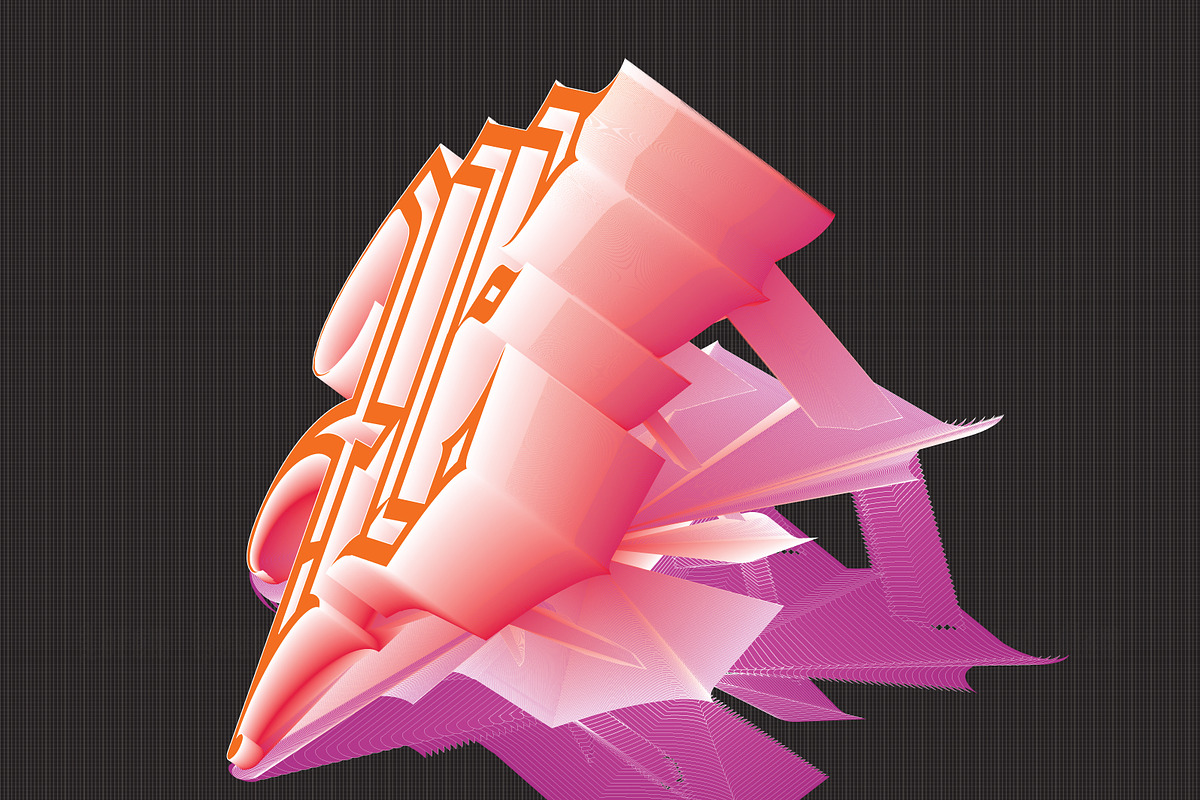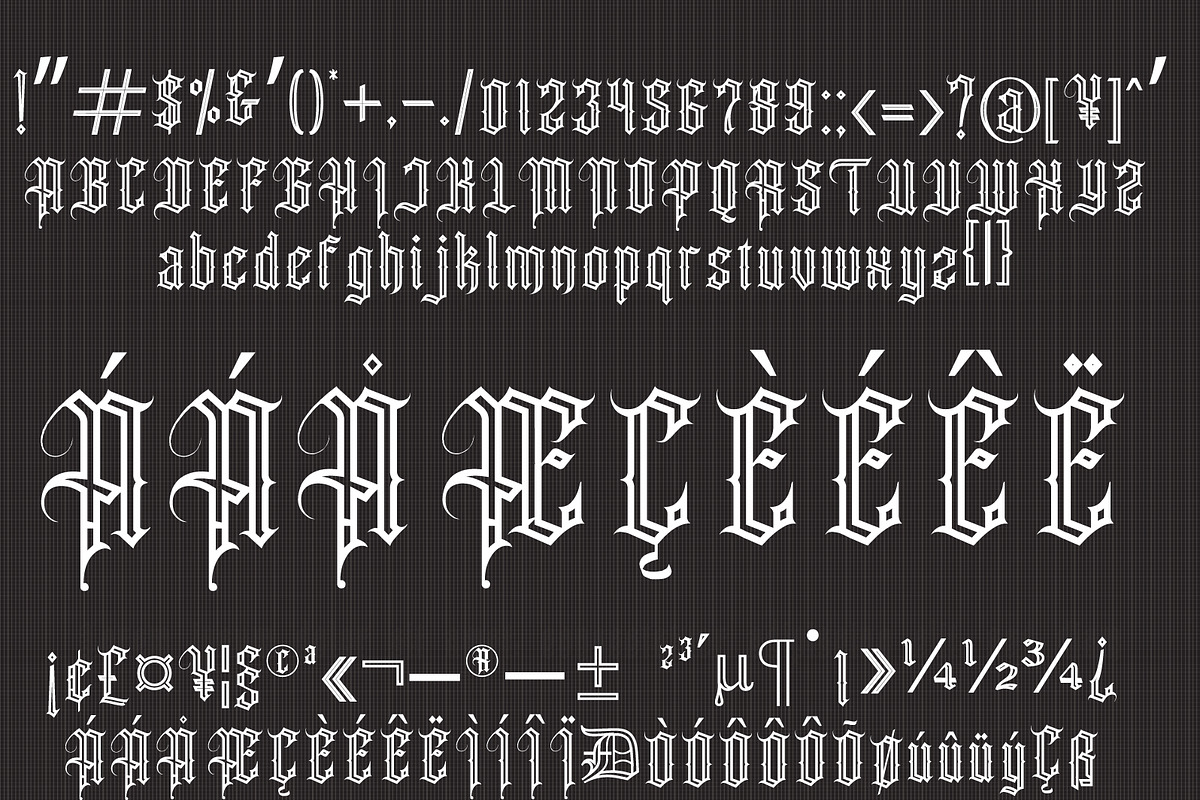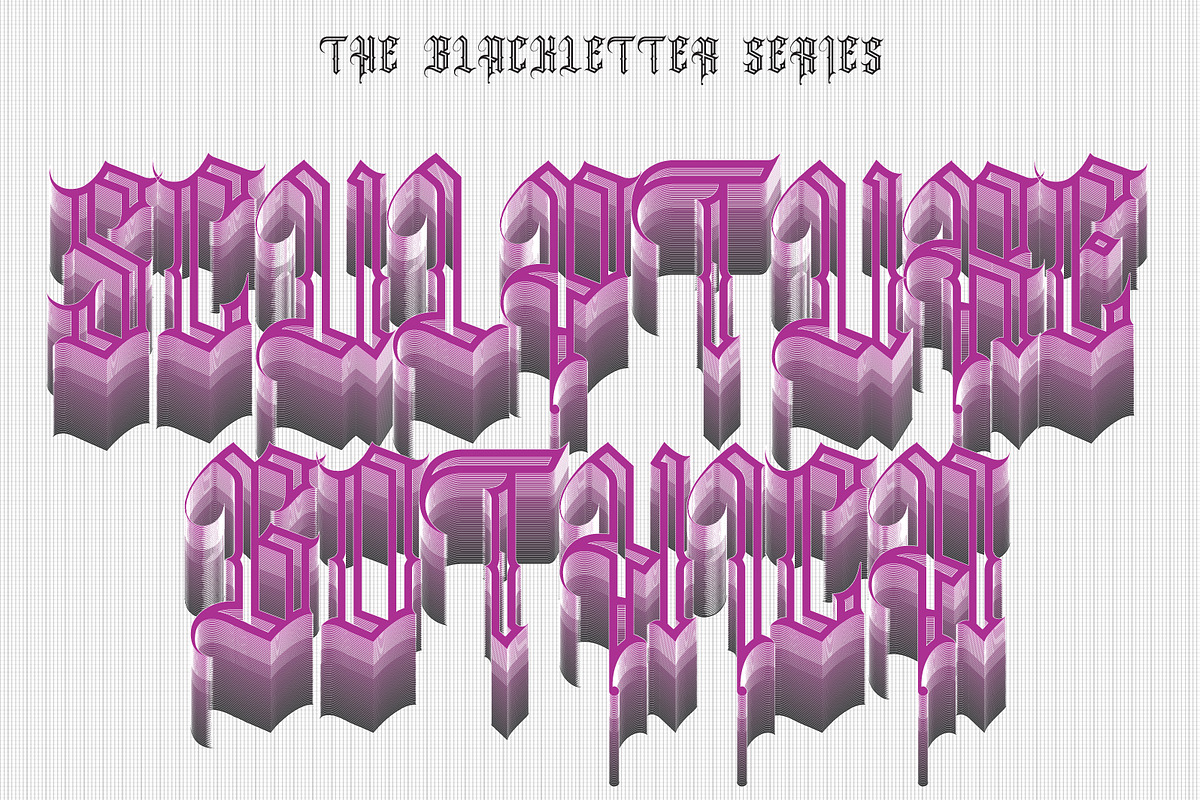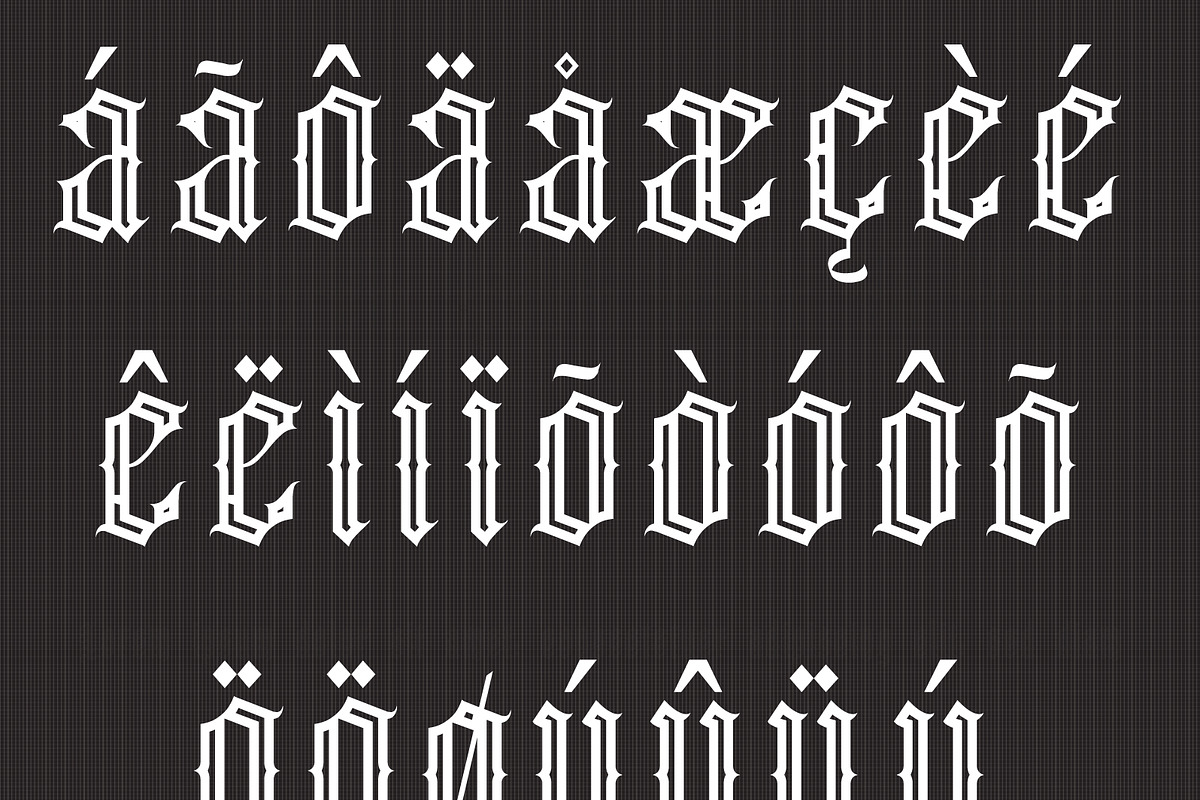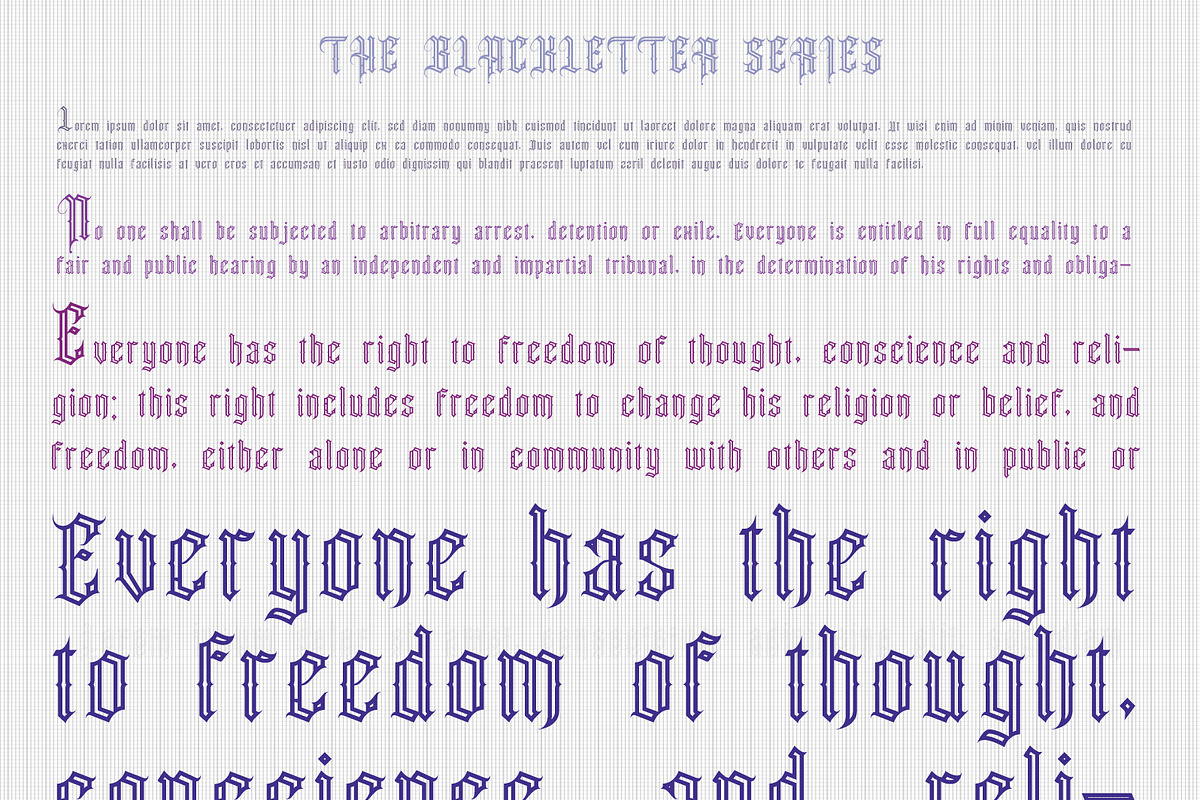
Sculpture Gothica
Blackletter typefaces are stylized fonts with a calligraphic appearance and stylized flourishes giving them a distinctly historical feel